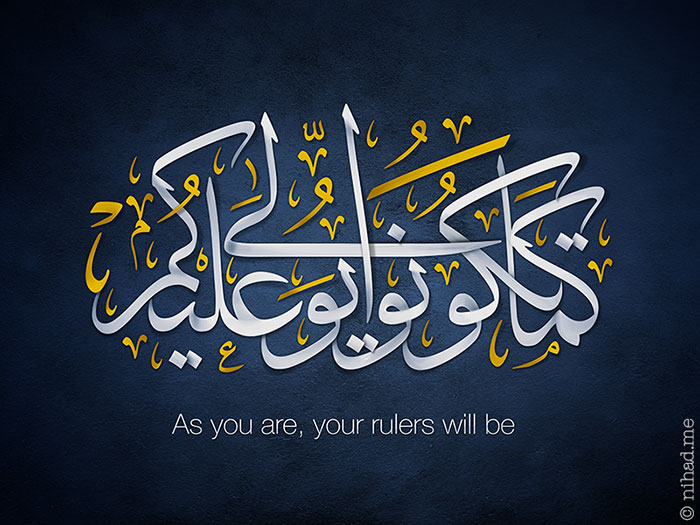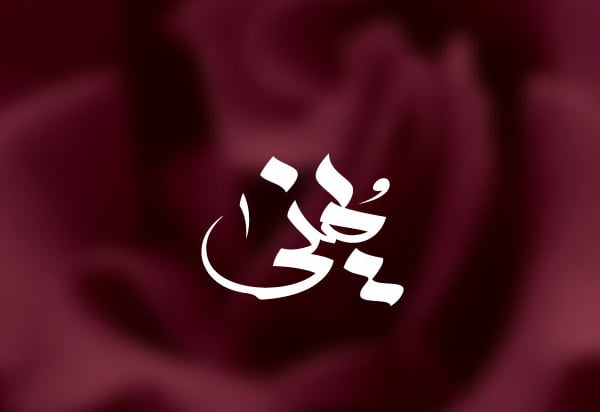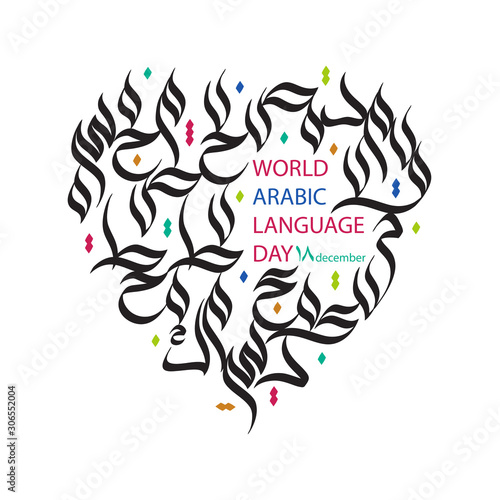
Bahij Myriad Arabic Font is designed by Abdul Hamid Bahij.
Modern arabic calligraphy fonts. The Modern Arabic Fonts Raqami. Nur Hidayah by Anomali Creative. Modern calligraphy typefaces differ from traditional calligraphy in that they do not adhere to specific lettering rules.
3 font styles from 1000. You can seek ideas and inspiration that how apt fonts would be looking so perfect having the best essence and significance in the Arabic calligraphy. HS Alnada is a modern OpenType Arabic font download.
This is where creativity explodes. But Arabic calligraphy is not limited only to Islam. This can be a great choice of font for creative design related to any digital product advertising or related project.
The main impulse for the development of Arabic calligraphy was the holy book of Muslims the Koran. To create content for audiences in countries where Arabic is the only language used these true Arabic fonts can be priceless as they allow content to be created originally in that language without compromising on quality. The advantage of Arabic calligraphy is the natural disposition of Arabic characters to decorative writing.
Over time it has become an inseparable part of modern Arabic graphics and design. We regularly update it with new cutting-edge and screen-optimised fonts such as Futura Arabic and Tanseek Modern while continuing to maintain our oldest and most iconic typefaces Boutros Advertising and Boutros MB which have been in use for decades. Hama Arabic Font is designed by Nabil Murad it is a modern Arabic font with a beautiful colored background the font is ideal for design projects.
It is a modern Kufi Naskh hybrid and keeps the balance between its construction and calligraphic angular cuts. Mar 25 2021 - All about modern arabic calligraphy. Inspired by the 8-bit graphics Paxalah is a great choice of Arabic font if you are looking for a digital pixelation type of font.
This typeface supports Arabic Persian Urdu and Kurdish variants and it is available in five weights. This style can end up looking very similar to hand-lettered fonts but the difference is that calligraphy is written and not drawn. Martyr Hala calligraphy font by Mohamed Moussa In the memory of Hala Abou Chaichah this arabic calligraphy font was made.
1 font style from 7900. Jozoor Free Arabic font. We have researched and chosen the top-rated Arabic fonts - Hacen Tunisia Lt Regular Iranian Sans Regular URW DIN Arabic Demi AXtGIhaneBold Regular IRANBlack Regular.
There are plenty of users who are looking for a true Modern Arabic font. Free Disney Fonts A Tale of a 1001 Fonts. Moreover Our fonts are very rich and of high quality.